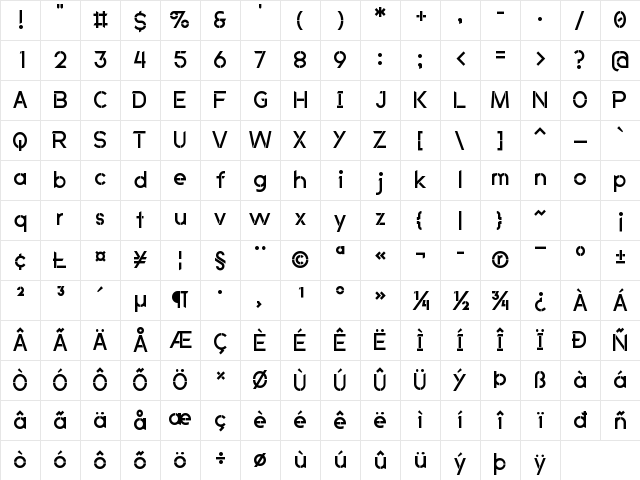
Anklada Novaz Original
Style: Original
Designer: Yun Gonz?lez
Design Context for Anklada Novaz
Anklada Novaz is a composed and adaptable typeface that performs quietly and consistently across a wide range of design contexts.